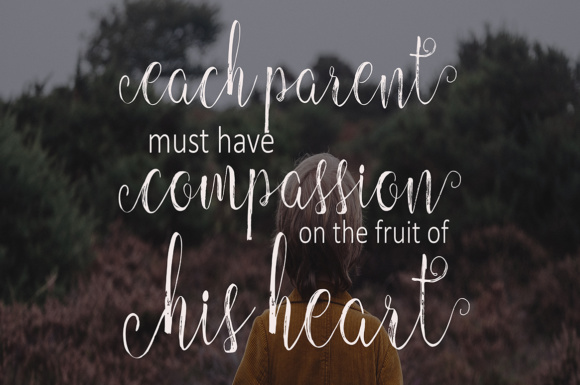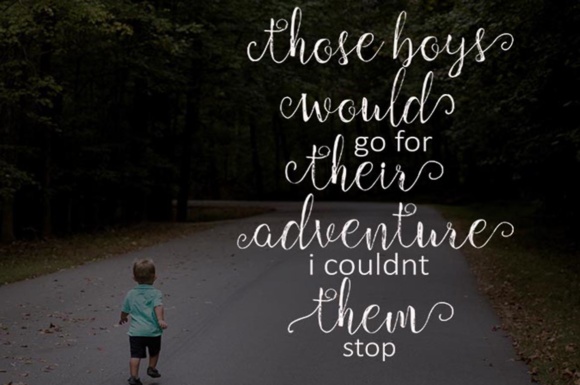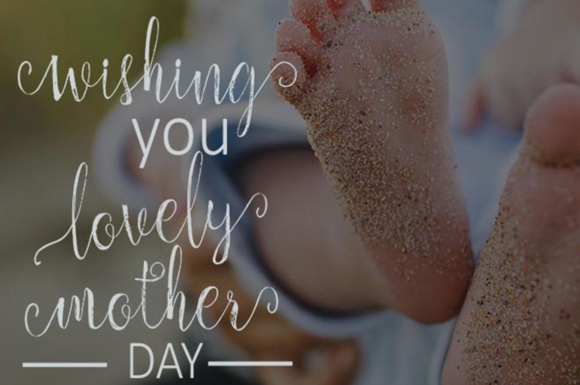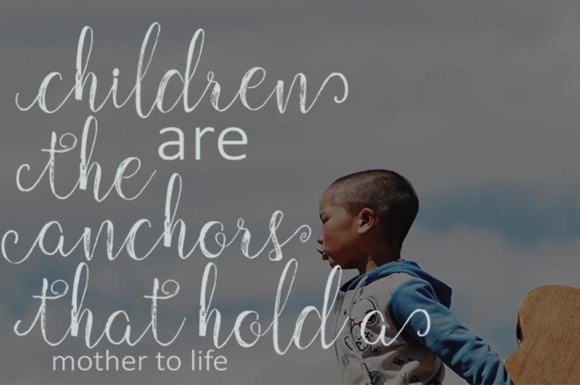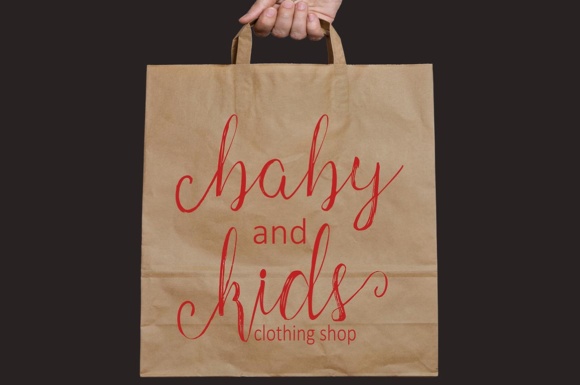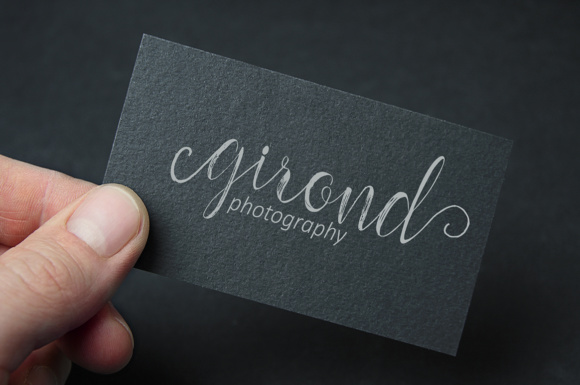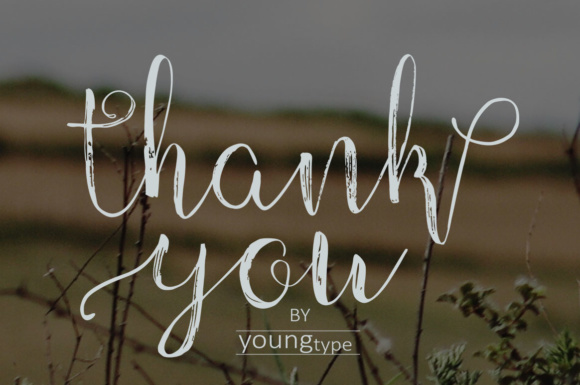
Children Font
About Children Font
Children is a thin and delicate hand-brushed font, ideal for use in projects that need some rustic charm. This font has a feminine appeal, and can add tons of understated style to your projects.